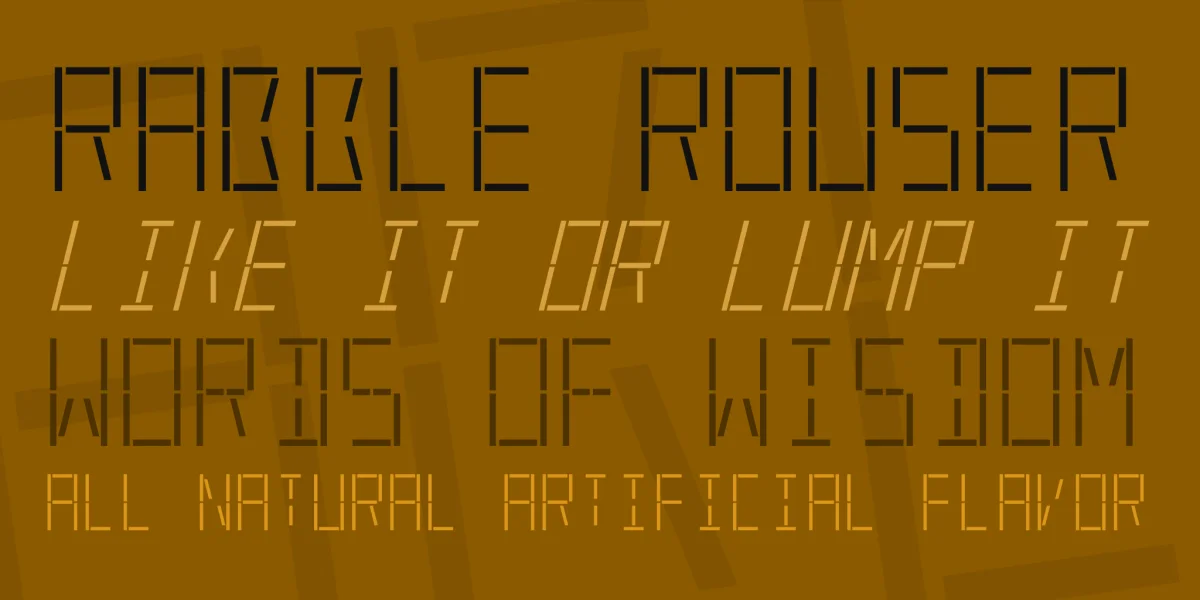
Unlike most LED/LCD style fonts mine could be recreated with an actual LED. I created this font working from memories of the good old Speak and Spell display. Since I don't have an actual Speak and Spell to work from I had to just do as well as I could in its spirit. I have also added an italic version as well as one with a slightly different segment layout.